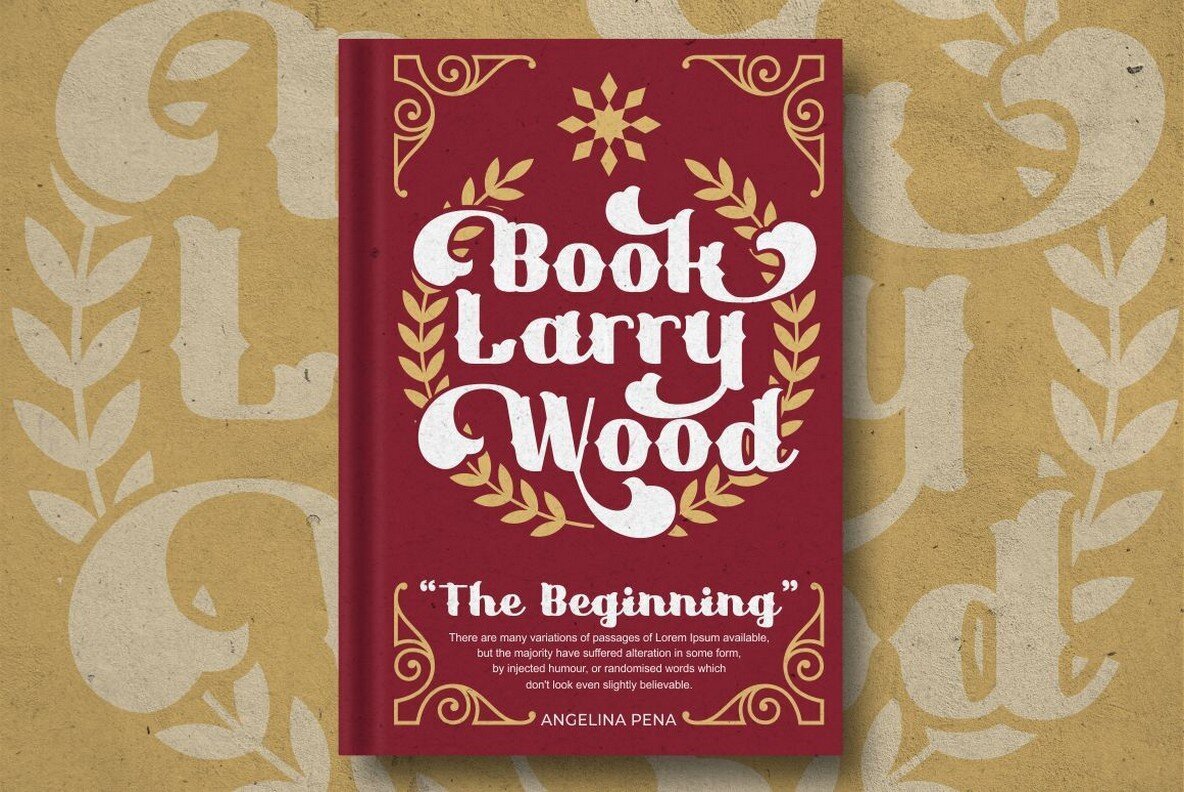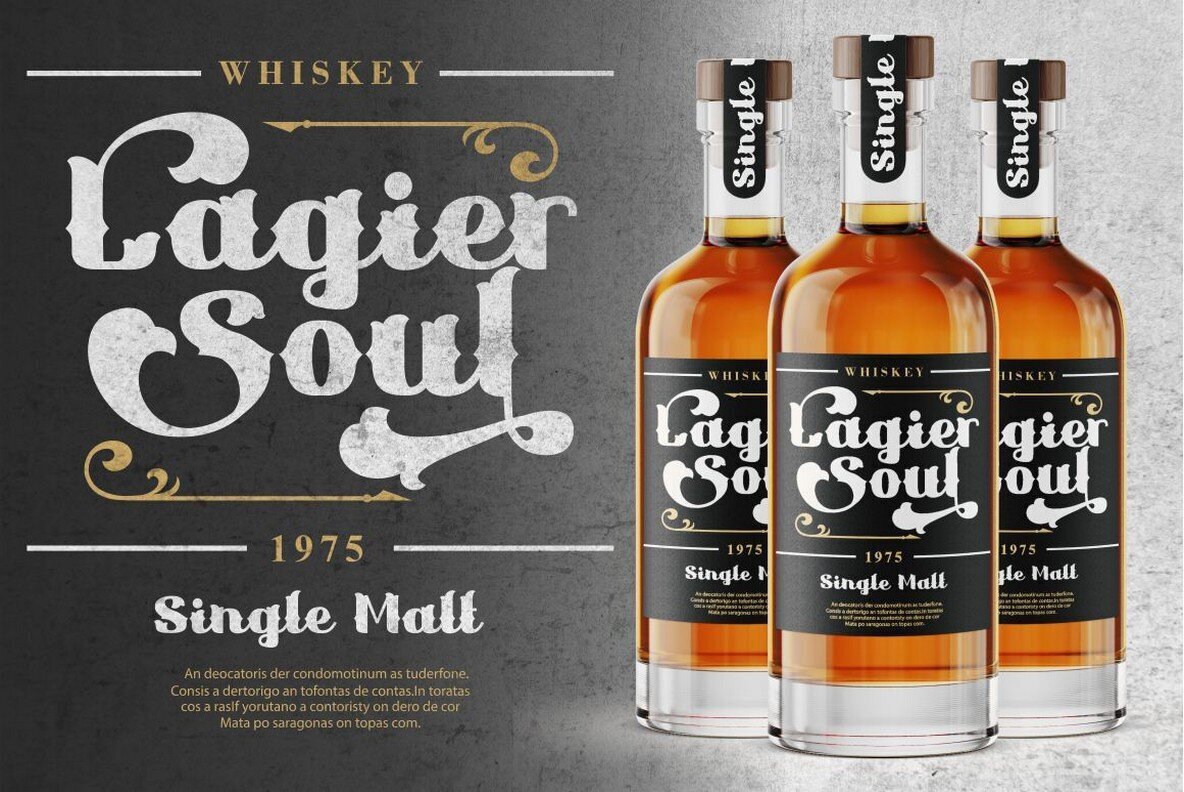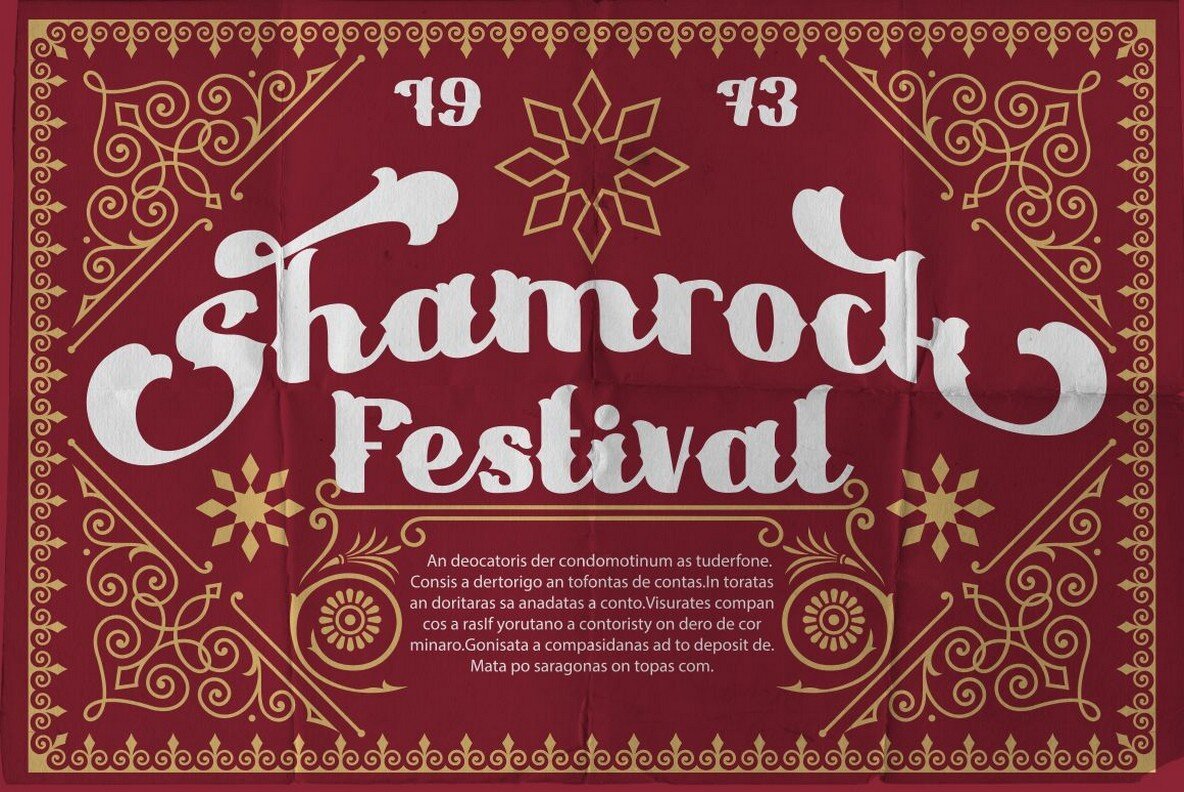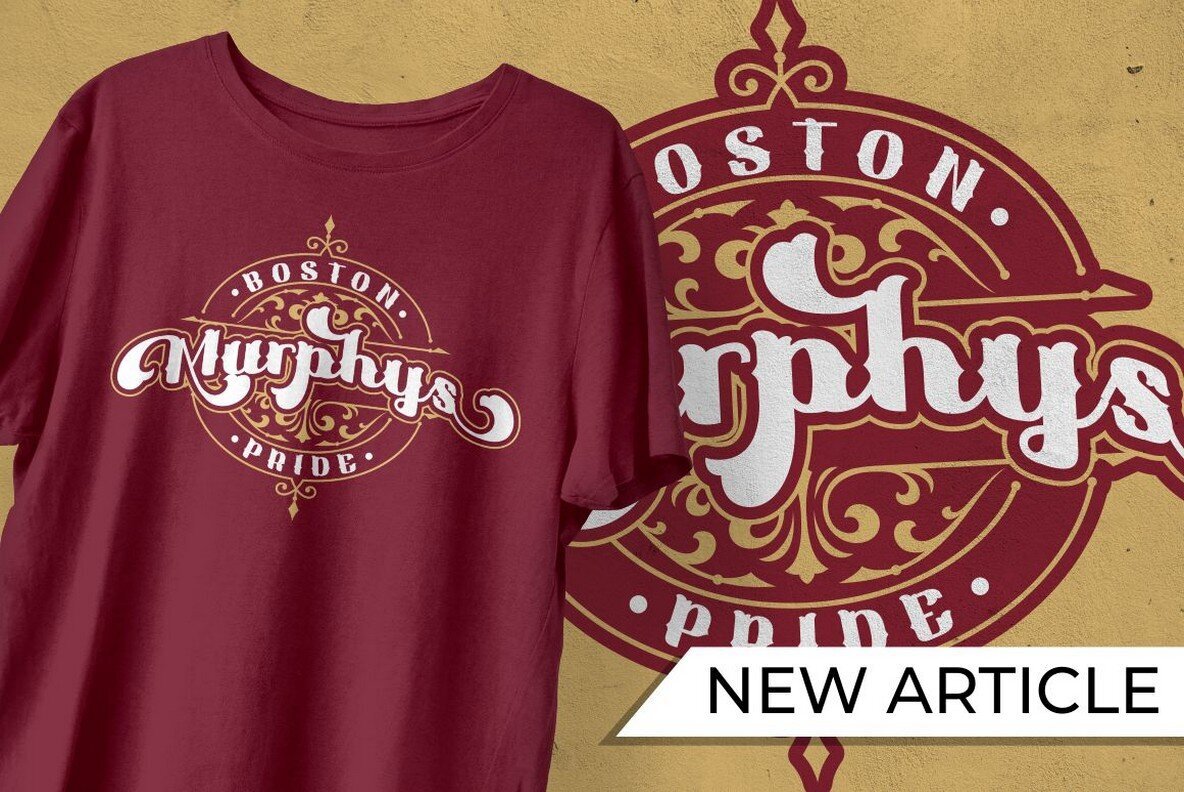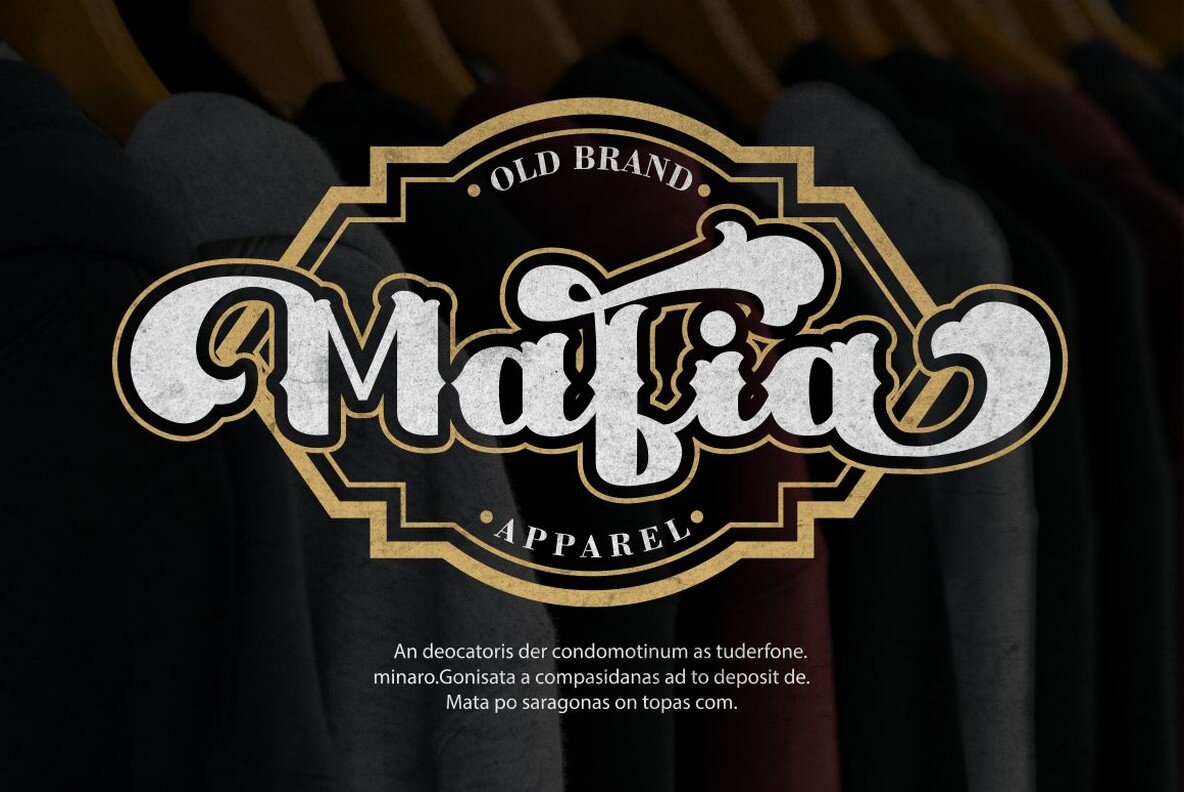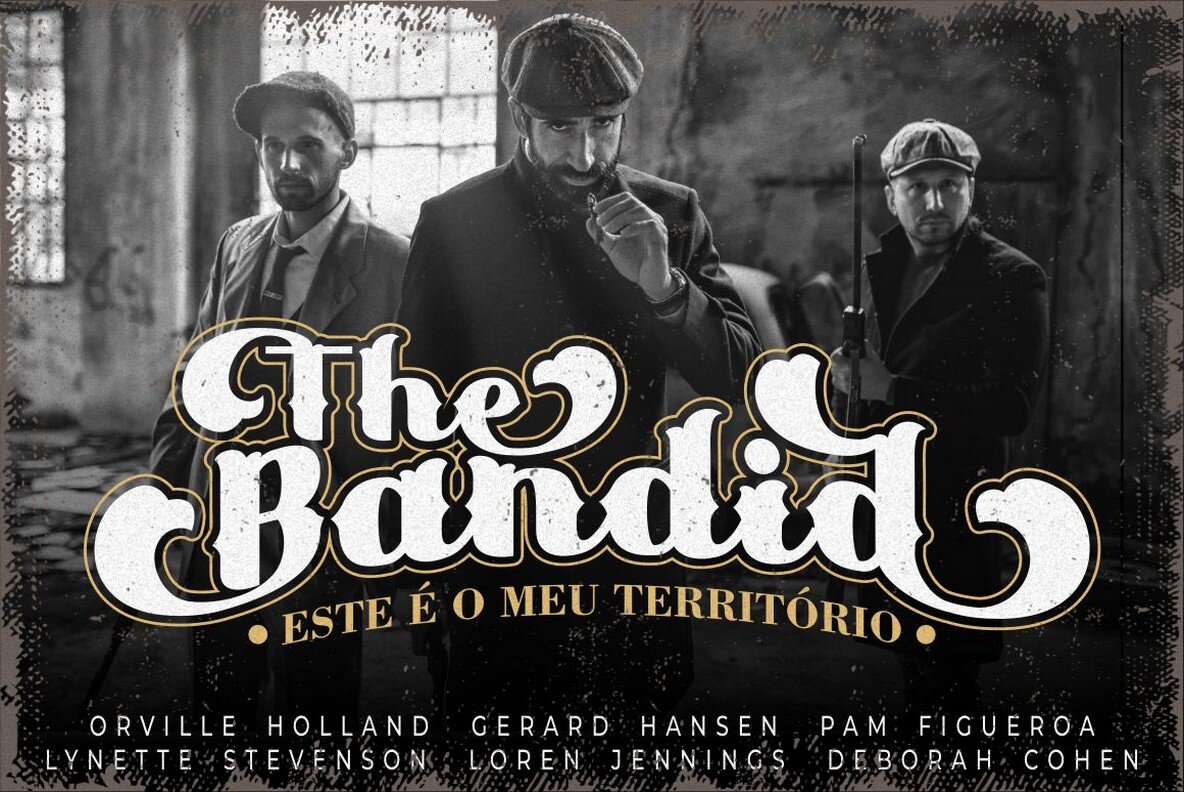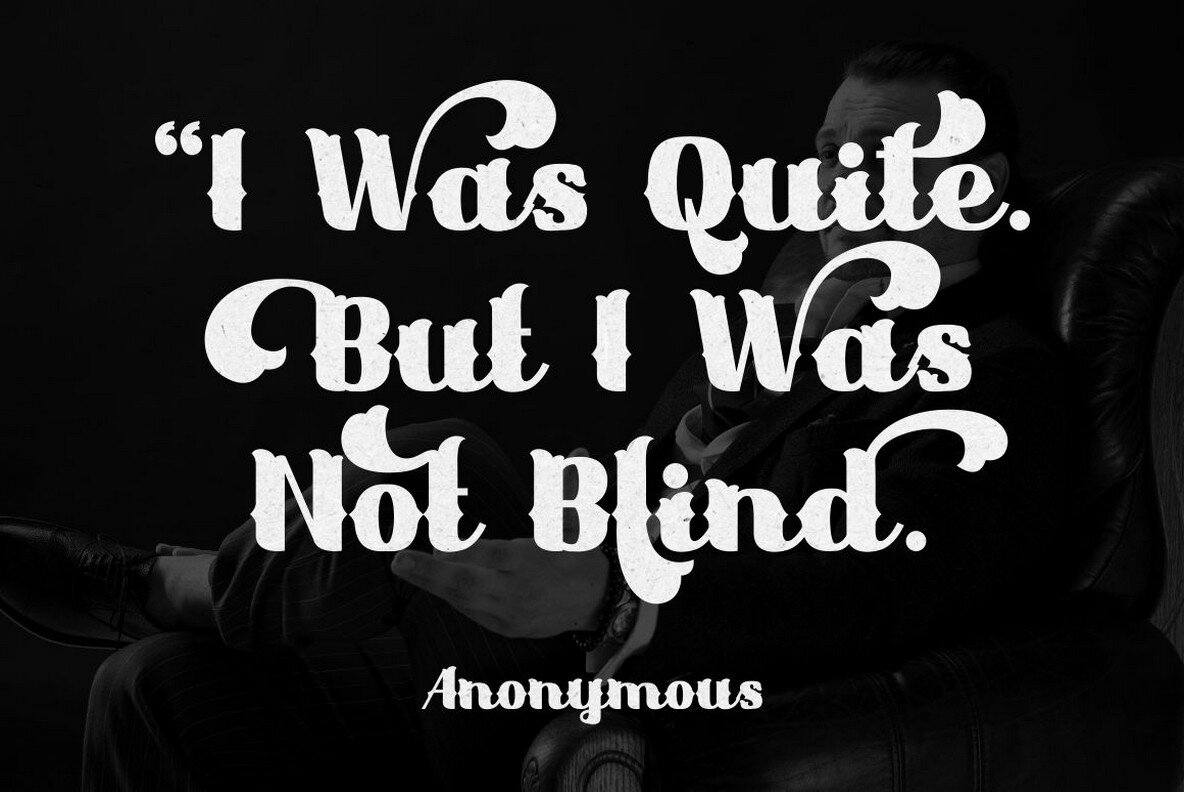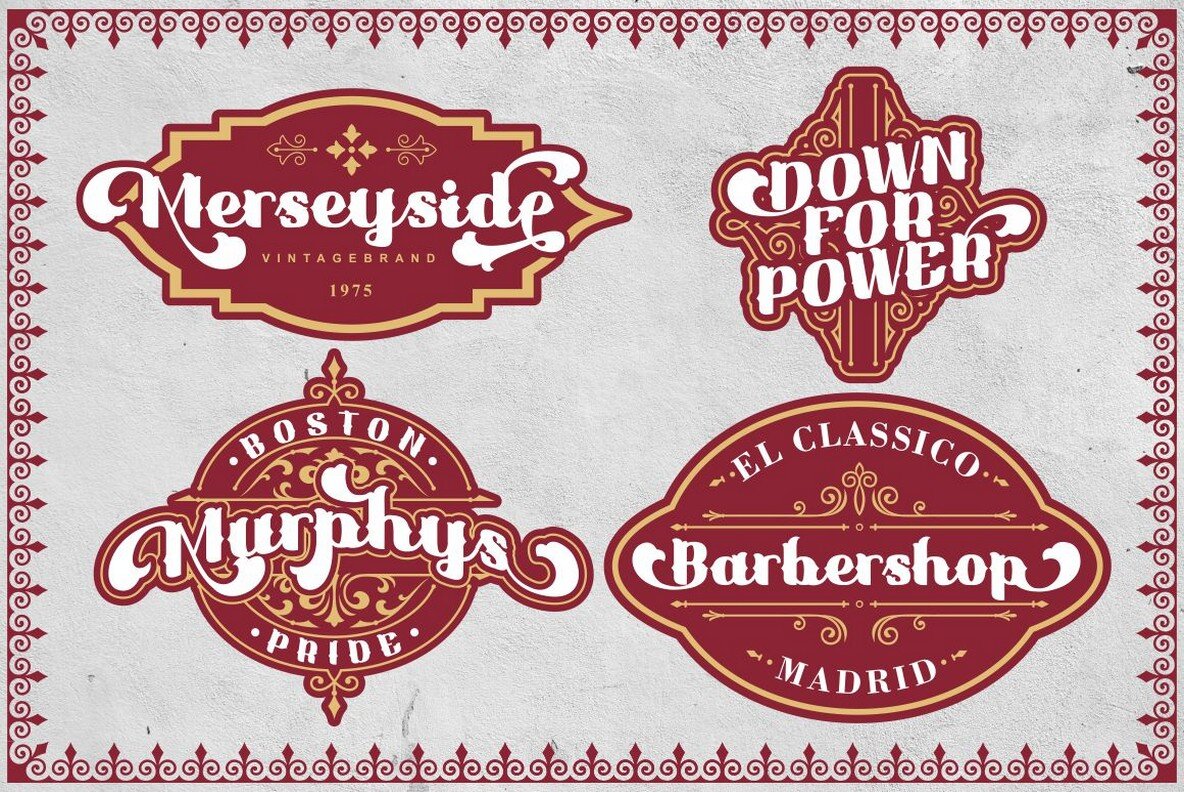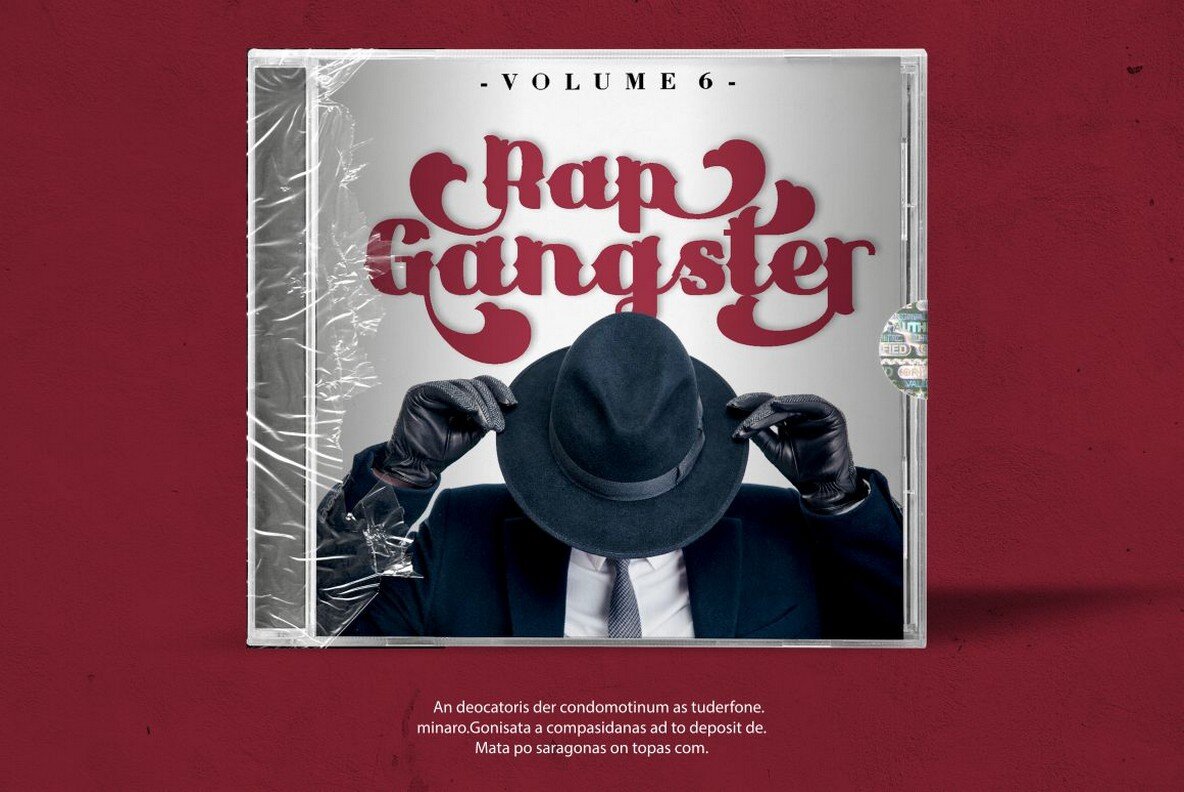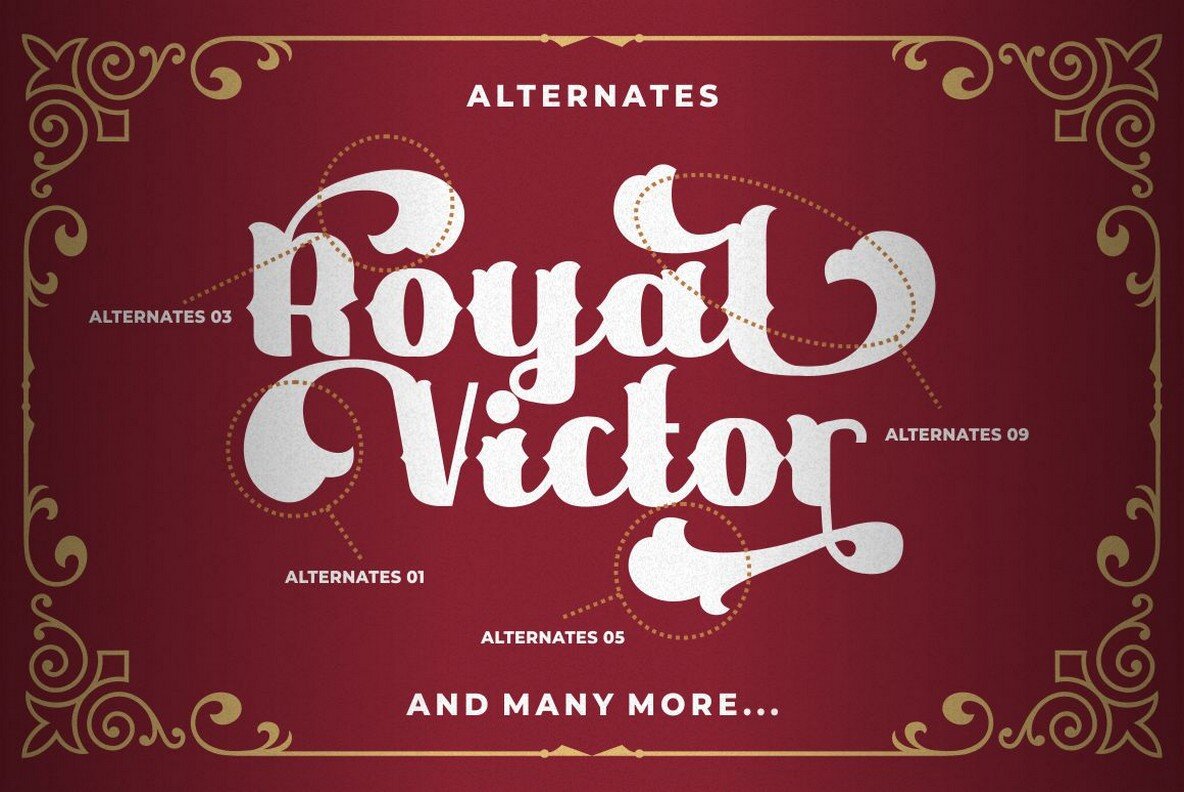
Royal Victor Font
Royal Victor
Embrace the elegance of a bygone era with Royal Victor, a bold display font that reinstates the vintage charisma of the 60s and 70s. This typeface ventures beyond the conventional, offering beautiful ligatures and a plethora of alternate glyphs designed to infuse your projects with a distinct personality. While its bold and groovy style pays homage to the retro aesthetic, its versatility ensures a seamless fit across various formats, from large headlines to intricate cover designs. Features: Whether for posters, logos, quotes, or social media graphics, Royal Victor serves as a reliable ally in rendering designs that are as memorable as they are stylish.Royal Victor: Victorian Display with Modern Flair